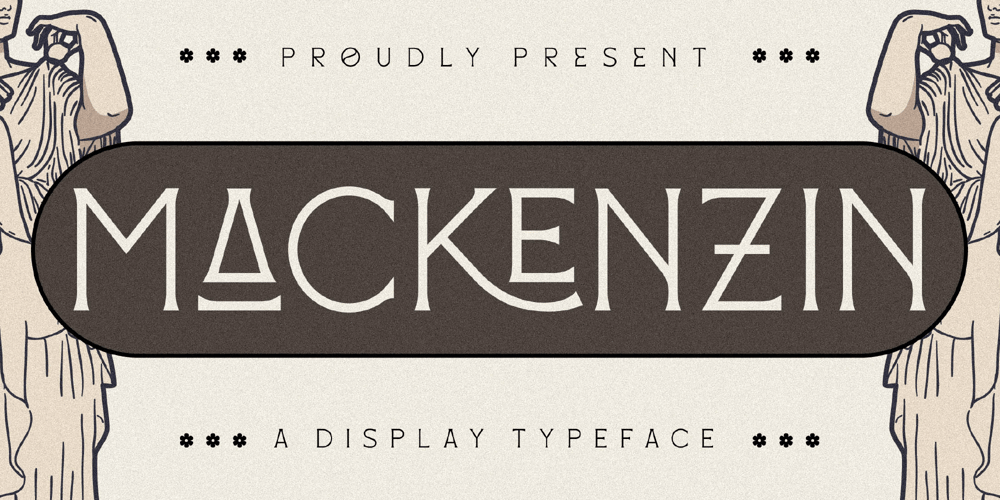
Mackenzin Font Family was designed by Heru Utama Putra and published by Letterena Studios. Mackenzin contains 2 styles and family package options. Mackenzin is a modern and classic serif font with a unique style and fancy look! This typeface is perfect for an elegant & luxury logo, book or movie title design, fashion brand, magazine, clothes, lettering, quotes, and so much more.